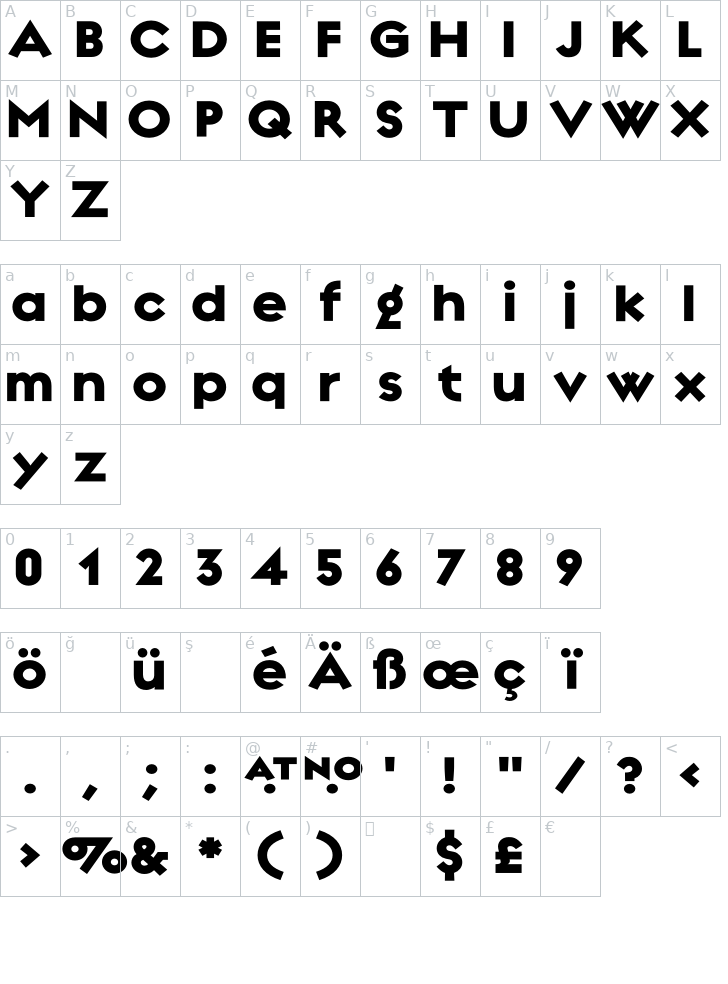
Regulator Heavy Font . you can use the regulator heavy to create interesting designs, covers, shop and store. download regulator nova heavy font. The author of the font is unknown. The font version is 001.000 and. Regulator nova heavy by adobe systems incorporated. Votes, rated based on results identification. regulator heavy font.
download regulator nova heavy font. you can use the regulator heavy to create interesting designs, covers, shop and store. The author of the font is unknown. The font version is 001.000 and. Regulator nova heavy by adobe systems incorporated. regulator heavy font. Votes, rated based on results identification.
Regulator Heavy Font you can use the regulator heavy to create interesting designs, covers, shop and store. download regulator nova heavy font. Regulator nova heavy by adobe systems incorporated. The author of the font is unknown. you can use the regulator heavy to create interesting designs, covers, shop and store. regulator heavy font. Votes, rated based on results identification. The font version is 001.000 and.
Regulators Font Family Download Free for Desktop & font Regulator Heavy Font The author of the font is unknown. The font version is 001.000 and. you can use the regulator heavy to create interesting designs, covers, shop and store. Regulator nova heavy by adobe systems incorporated. Votes, rated based on results identification. regulator heavy font. download regulator nova heavy font. Regulator Heavy Font.
Font FontYukle Regulator Heavy Font you can use the regulator heavy to create interesting designs, covers, shop and store. The font version is 001.000 and. The author of the font is unknown. Votes, rated based on results identification. regulator heavy font. Regulator nova heavy by adobe systems incorporated. download regulator nova heavy font. Regulator Heavy Font.
Regulators Font 1001 Free Fonts Regulator Heavy Font download regulator nova heavy font. Votes, rated based on results identification. you can use the regulator heavy to create interesting designs, covers, shop and store. regulator heavy font. The author of the font is unknown. The font version is 001.000 and. Regulator nova heavy by adobe systems incorporated. Regulator Heavy Font.
Regulator Heavy Free Font Download MaisFontes Regulator Heavy Font The font version is 001.000 and. Votes, rated based on results identification. you can use the regulator heavy to create interesting designs, covers, shop and store. download regulator nova heavy font. regulator heavy font. Regulator nova heavy by adobe systems incorporated. The author of the font is unknown. Regulator Heavy Font.
Regulator Heavy Font Download For Free, View Sample Text, Rating And Regulator Heavy Font regulator heavy font. download regulator nova heavy font. Regulator nova heavy by adobe systems incorporated. The font version is 001.000 and. The author of the font is unknown. Votes, rated based on results identification. you can use the regulator heavy to create interesting designs, covers, shop and store. Regulator Heavy Font.
Download free Regulator Heavy font RegulatorHeavy.otf Regulator Heavy Font download regulator nova heavy font. regulator heavy font. Votes, rated based on results identification. you can use the regulator heavy to create interesting designs, covers, shop and store. Regulator nova heavy by adobe systems incorporated. The author of the font is unknown. The font version is 001.000 and. Regulator Heavy Font.
Regulator Font Regulator Heavy Font you can use the regulator heavy to create interesting designs, covers, shop and store. download regulator nova heavy font. regulator heavy font. Votes, rated based on results identification. Regulator nova heavy by adobe systems incorporated. The font version is 001.000 and. The author of the font is unknown. Regulator Heavy Font.
High Voltage Heavy Rough Font Regulator Heavy Font The font version is 001.000 and. download regulator nova heavy font. Regulator nova heavy by adobe systems incorporated. Votes, rated based on results identification. you can use the regulator heavy to create interesting designs, covers, shop and store. regulator heavy font. The author of the font is unknown. Regulator Heavy Font.
Regulators Font Download Fonts4Free Regulator Heavy Font Votes, rated based on results identification. you can use the regulator heavy to create interesting designs, covers, shop and store. The font version is 001.000 and. The author of the font is unknown. download regulator nova heavy font. Regulator nova heavy by adobe systems incorporated. regulator heavy font. Regulator Heavy Font.
Regulators Shadow font Regulator Heavy Font regulator heavy font. download regulator nova heavy font. Regulator nova heavy by adobe systems incorporated. you can use the regulator heavy to create interesting designs, covers, shop and store. The font version is 001.000 and. Votes, rated based on results identification. The author of the font is unknown. Regulator Heavy Font.